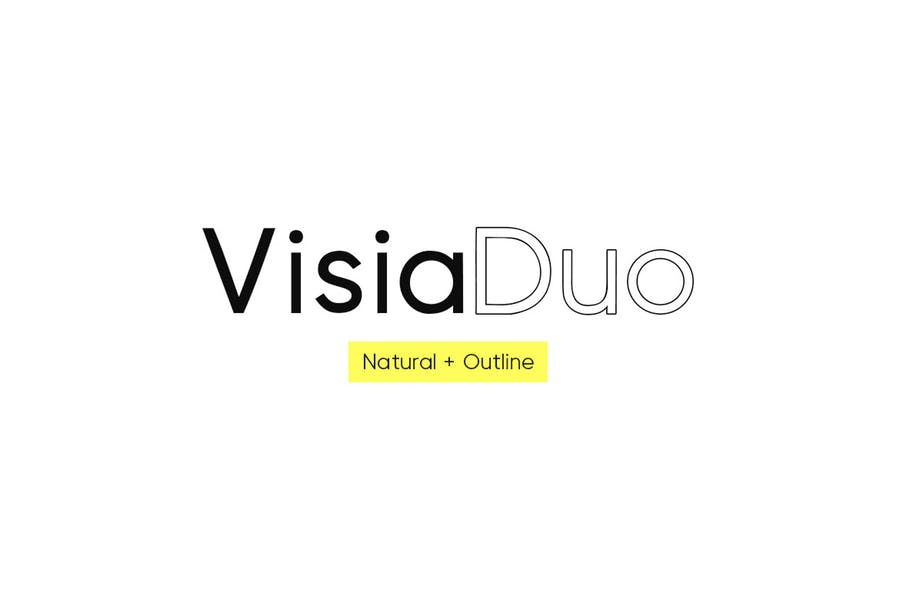
Visia Duo Font
Visia Duo Font is perfect for creative branding, modern logos, digital interfaces, contemporary advertising, artistic posters, fashion design, tech startups, innovative packaging, editorial headlines, and dynamic visual communications. This distinctive typeface excels in both digital and print applications requiring creative versatility.
Visia Duo Font is exciting because it offers dual personality design with contrasting weights and styles that create dynamic visual tension while maintaining harmonious balance. Its innovative character provides designers with unique typographic solutions that stand out in competitive markets and capture audience attention.
The Visia Duo Font family includes regular, bold, light, condensed, outline, shadow, decorative, and display variants, providing designers with comprehensive typographic options for various design scenarios and creative communication requirements.
Visia Duo Font embodies innovative typography that breaks conventional boundaries, delivering exceptional creative flexibility for brands seeking to differentiate themselves through distinctive visual communication. This groundbreaking typeface offers contrasting design elements within a cohesive system, enabling designers to create dynamic hierarchies and engaging visual narratives that capture attention in crowded marketplaces. The font's versatile character makes it particularly valuable for creative agencies, design studios, technology startups, and innovative brands that require typography capable of conveying originality, forward-thinking, and creative excellence.
The architectural innovation of Visia Duo Font demonstrates masterful understanding of typographic contrast and harmony, with complementary styles that work individually or together to create compelling visual solutions. This sophisticated approach ensures optimal performance across diverse creative applications, from bold headline statements to nuanced text combinations that enhance brand storytelling. The font's dynamic qualities make it especially effective for brands in fashion, technology, entertainment, and creative services that celebrate innovation and artistic expression.
Creative professionals working with Visia Duo Font Free Download will appreciate the typeface's exceptional versatility across contemporary design challenges. Its innovative styling bridges experimental and commercial design approaches, making it suitable for avant-garde creative projects and mainstream brands requiring distinctive, memorable typography. The font's dynamic presence makes it particularly effective for startup companies, creative platforms, design conferences, and cultural organizations that must communicate innovation through bold, engaging visual design.
Whether developing cutting-edge brands, creating artistic communications, or designing digital experiences, Visia Duo Font provides the typographic innovation needed for creative communications that inspire audiences and establish memorable brand presence while maintaining professional credibility and achieving competitive differentiation in dynamic markets.